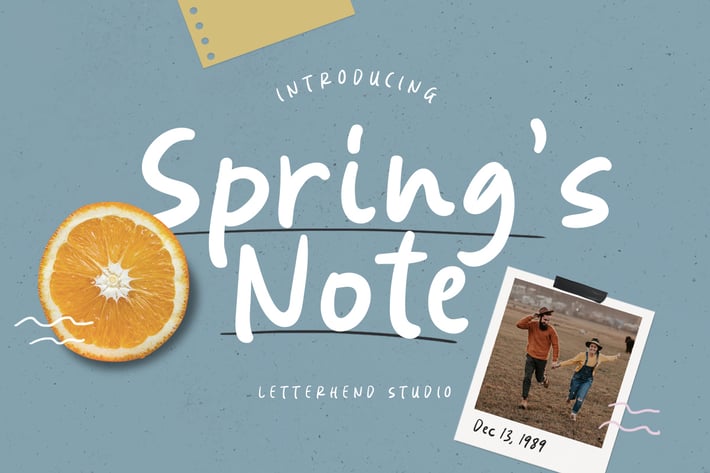
Spring’s Note – Handwritten Font
Spring’s Note is a playful yet usable font that you can use for any of your projects. Perfect for cute quote, branding, and anything. This font also included special alternates such as a star, circle, etc that you can access it from opentype features (ligature, stylistic alternates). Just activated the ligature feature, and type [A, O, a, o] along with one (1), for example: A1. This font already support multi language. Also comes with two style, Regular and Bold! Happy Creating!